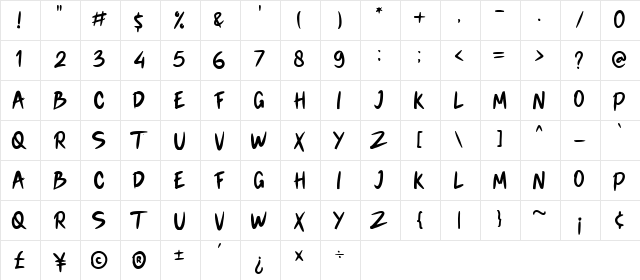
Alita Brush Regular
Design Context for Alita Brush Typeface
Alita Brush brings a calligraphic fluidity to the page — its connecting strokes and expressive curves give it an unmistakably human quality.